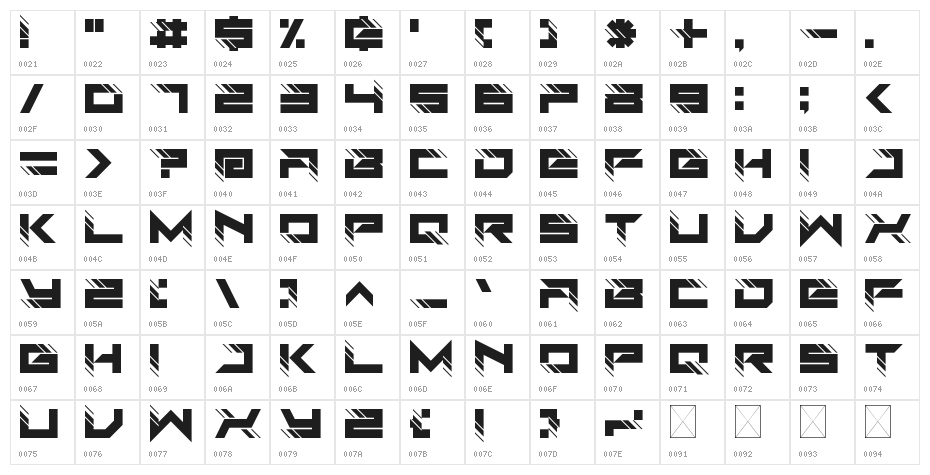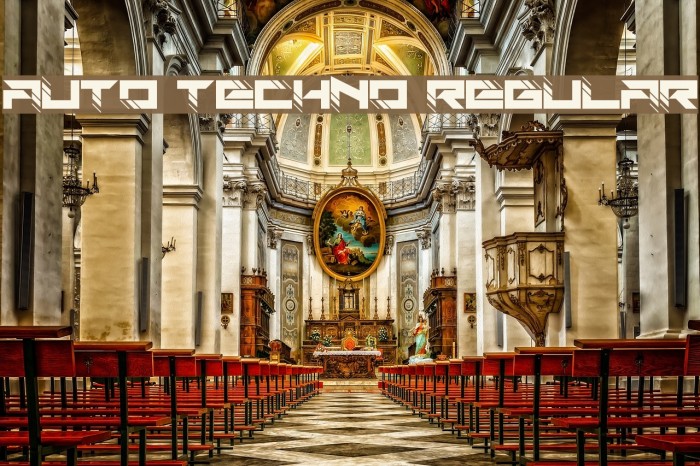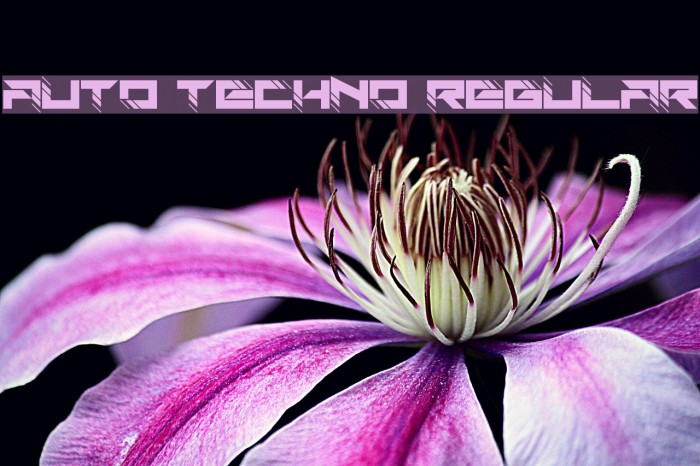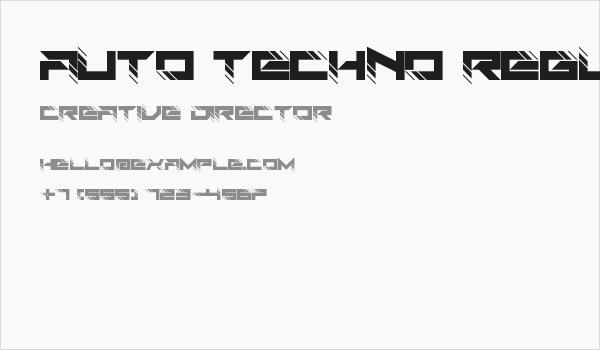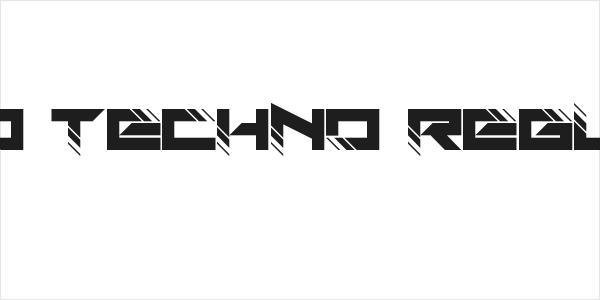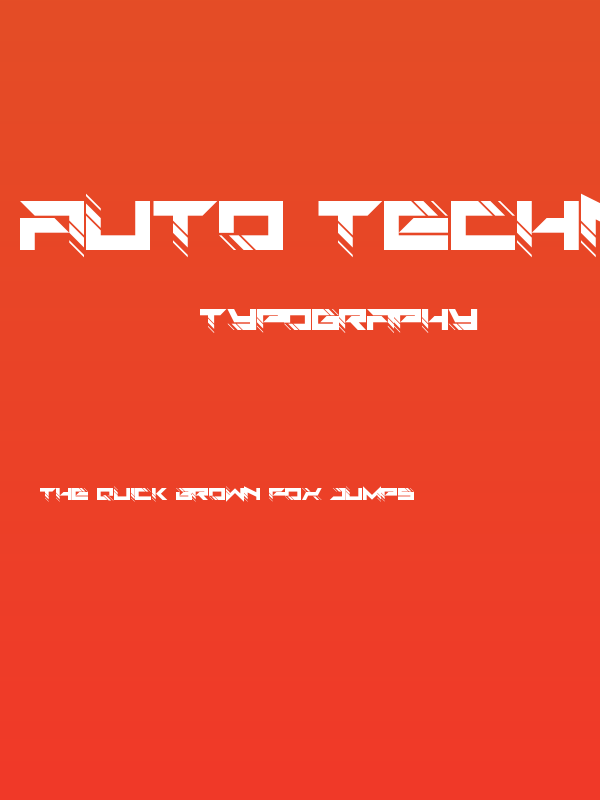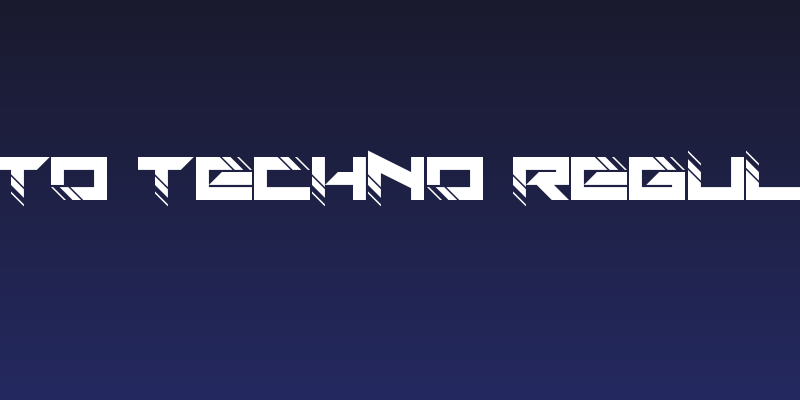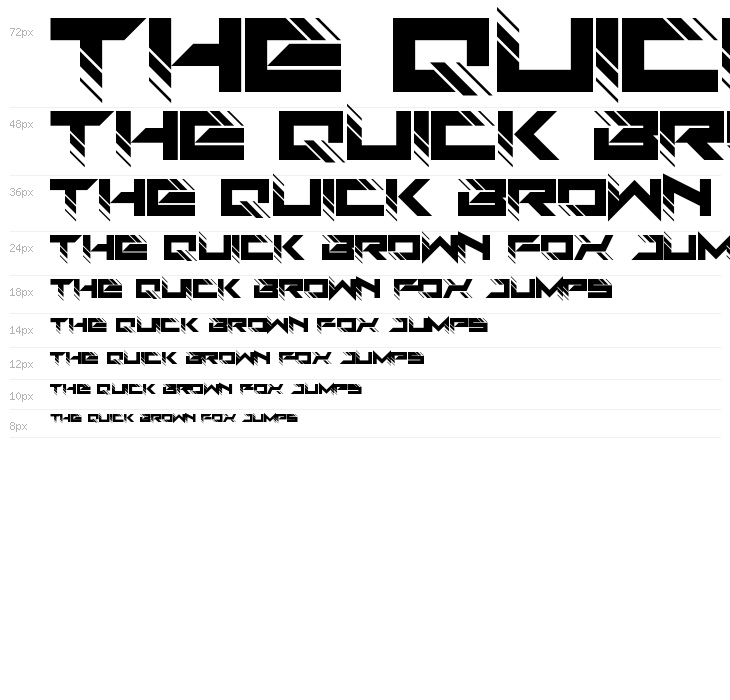
Auto Techno Regular Font
Auto Techno Regular Description
This font features a bold, futuristic design with a distinct techno vibe. The characters are constructed with sharp, angular lines and geometric shapes, giving it a mechanical and digital appearance. Each letter is adorned with diagonal cutouts, adding a sense of movement and complexity. The uppercase and lowercase letters maintain a consistent style, while the numbers and special characters complement the overall aesthetic. This font's unique style makes it stand out, perfect for projects that require a modern and edgy look.
| Proposed Projects | Ideal for technology-themed designs, video game titles, sci-fi movie posters, and digital branding. |